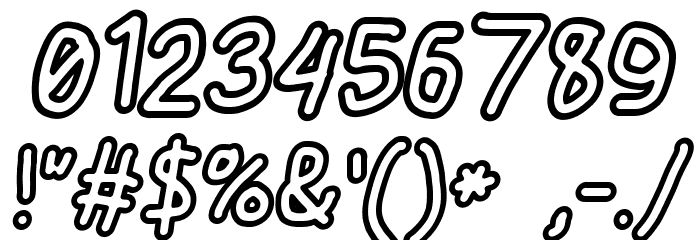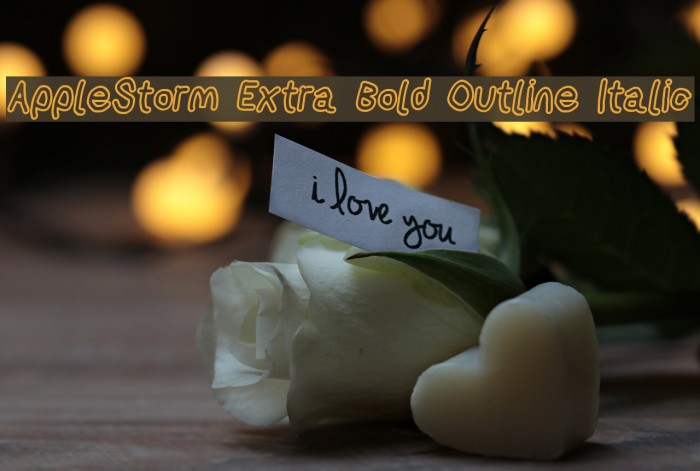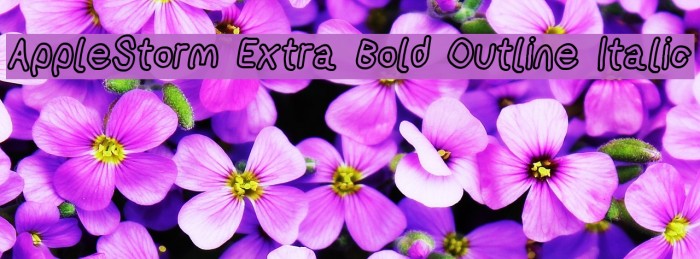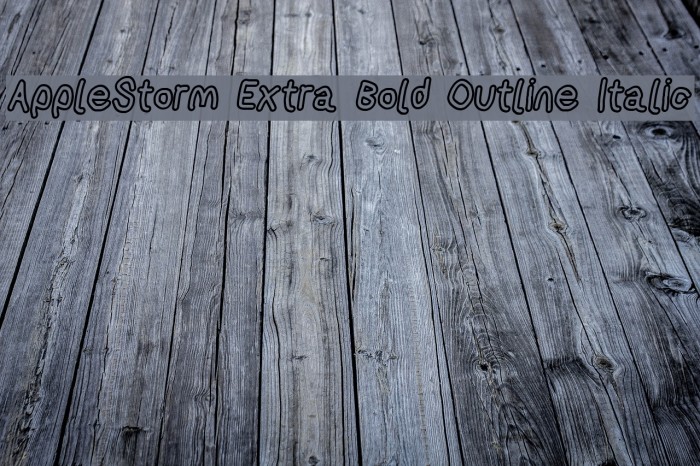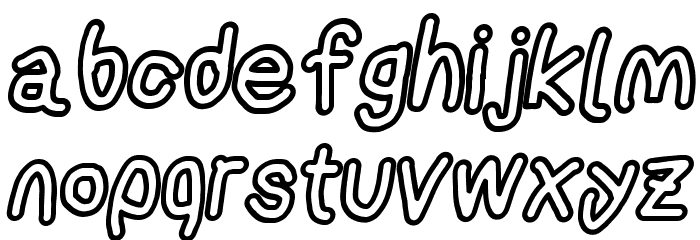
AppleStorm Extra Bold Outline Italic Font
This font features a bold, outlined style with a playful and energetic appearance. The characters are designed with a thick outline that gives them a striking presence, making them stand out on any page. The italic slant adds a dynamic feel, enhancing the overall lively and modern aesthetic. The uppercase and lowercase letters maintain a consistent style, with rounded edges that contribute to a friendly and approachable look. Numbers and special characters are included, matching the bold and outlined theme. This font is ideal for projects that require a fun and eye-catching design.
A bold, outlined, and italic font with a playful and modern style.
• Proposed Projects: Perfect for children's books, playful branding, posters, and creative advertisements.
• Category: Decorative/Display
• Bold: Yes
• Italic: Yes
• Weight: Bold
• Width: Normal
• Character Spacing: Normal
• Contrast: Low
• Overall Style: Modern
• Use Case: Headlines, Logos